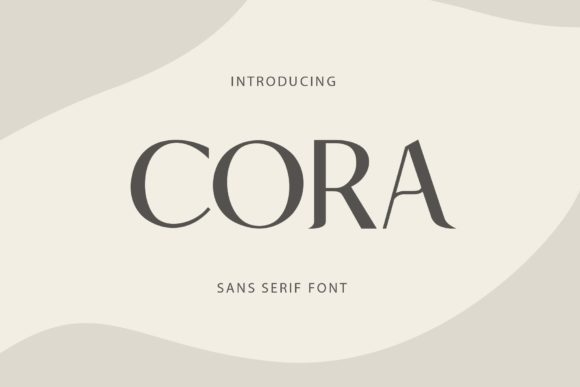
Dive into the world of Cora Font, a serif that spells elegance and distinction. Its slender, fashionable letters dance across your creations, leaving a trail of visual splendor. Cora's uniqueness captivates, turning ordinary designs into captivating masterpieces.
Step into Cora's realm and discover a font that breathes life into your creative visions. Cora's delicate lines sculpt words into art, transforming your projects into breathtaking spectacles. Its captivating curves and refined edges add a touch of sophistication to your designs, leaving a lasting impression on your audience.
Cora's versatility knows no bounds, effortlessly adapting to a symphony of creative endeavors. Let its beauty shine in letterheads and titles, where it commands attention with its regal presence. Bring refinement to your stationery with Cora's graceful strokes, turning each piece into a timeless treasure. Unleash your imagination and let Cora guide you through a realm of creative possibilities.
Cora's essence lies in its ability to elevate the mundane into the extraordinary. Its elegant strokes weave a tapestry of visual intrigue, capturing the essence of your messages and transforming them into captivating narratives. With Cora as your font, your designs transcend the ordinary, leaving an indelible mark on the hearts of your audience.
Embrace Cora's allure and embark on a creative odyssey that knows no limits. Allow its enchanting aura to permeate your designs, igniting a spark of inspiration that sets your work apart. Cora is more than just a font; it's an artistic gateway that unlocks a world of creativity waiting to be explored.